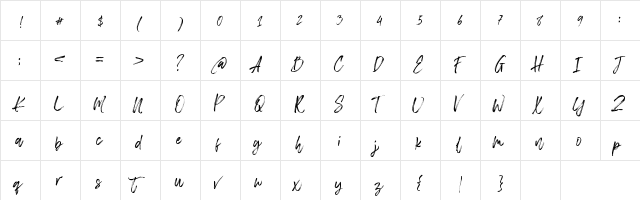
Chelistine Script Regular
| Designer | Abo Daniel 2020 |
Design Context for Chelistine Script Typeface
Chelistine Script flows with the natural rhythm of handwritten lettering, making it ideal for designs that call for warmth and personal expression.
Font Pairing: Combine Chelistine Script with a simple geometric sans for maximum contrast — the tension between flowing curves and clean structure is a classic typographic pairing.
Pro Tip: Use Chelistine Script for short runs of text — names, titles, or taglines. Extended body copy in script faces tires the eye quickly.